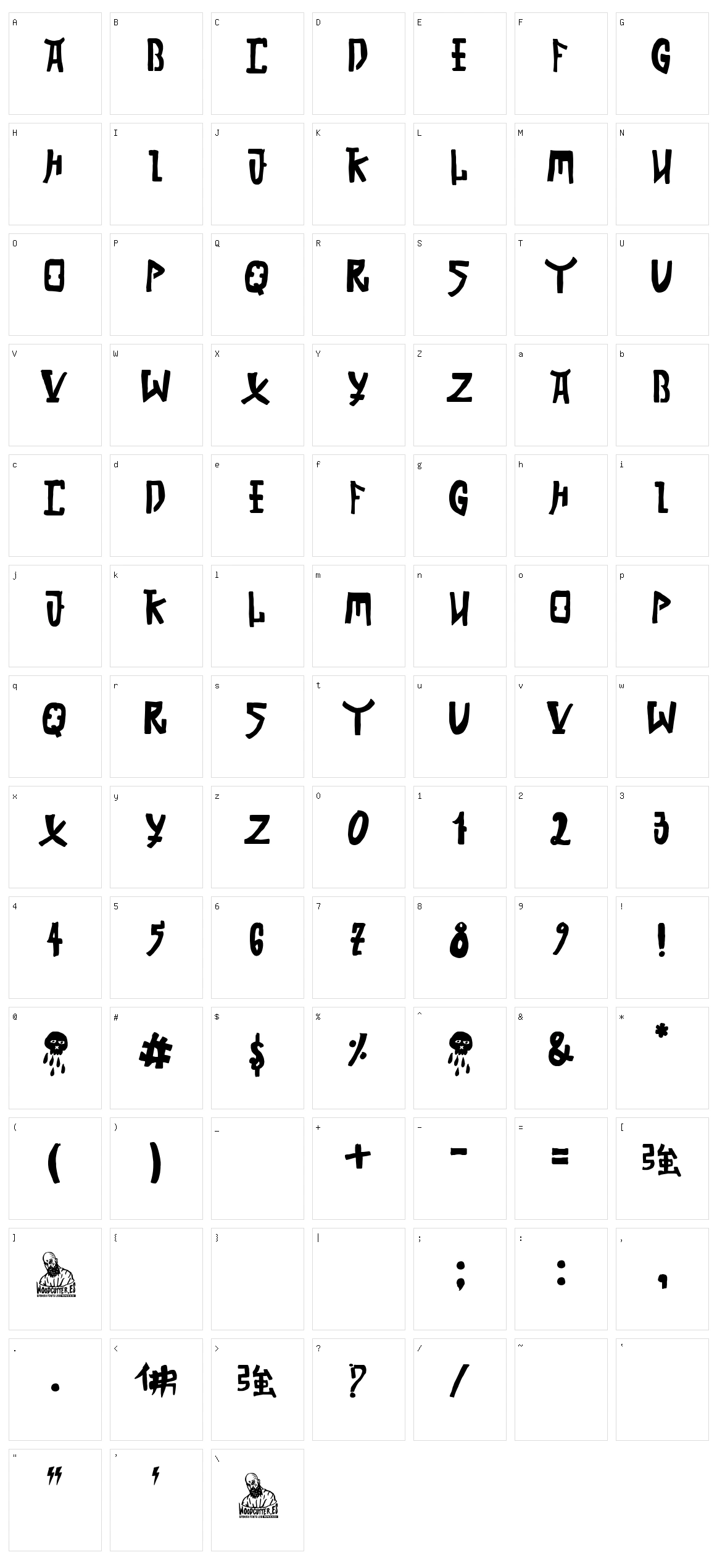
The free font China Club is carefully designed by Woodcutter, showcasing a thoughtful balance of creativity and usability and falls under the Asian font style. When you download the ZIP file, it contains only 53.63 KB of font files, making it lightweight and quick to download. Please review the license details below to understand permitted usage and distribution rights. If license information is not available, we recommend using this font for personal projects only or contacting the author directly for commercial usage permissions.